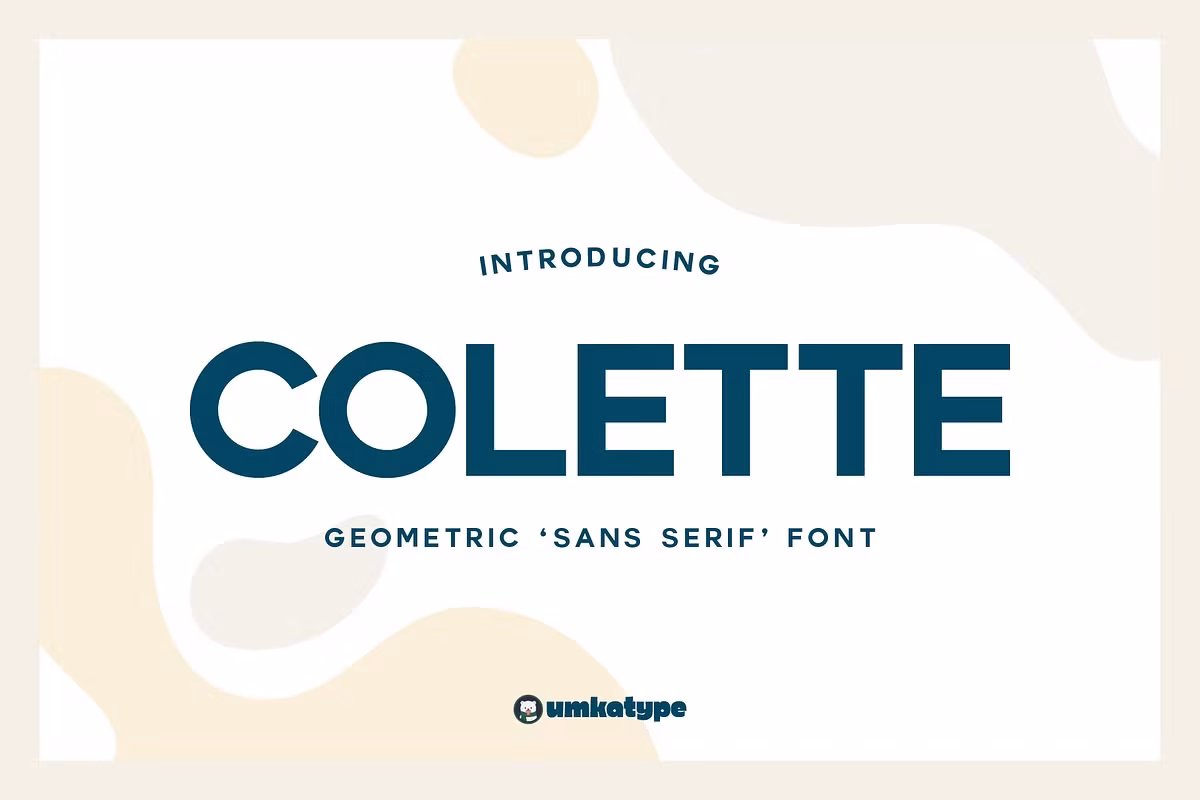
Colette - Geometric Sans Serif Font Free Download
Please note, to use this font for commercial purposes, you must purchase the full version. Colette is a modern and sleek geometric sans serif font designed to bring clean lines and a minimalist aesthetic to your designs. Perfect for logos, branding, websites, and editorial projects, this font combines simplicity with sophistication. Whether you're designing for a tech brand, a modern campaign, or a stylish event, Colette adds a professional and polished look to your work. Test it out and enjoy free download access for personal use. Experience the crisp, modern style of Colette - Geometric Sans Serif Font Free Download before purchasing the commercial license. Add a clean, contemporary touch to your designs with Colette.